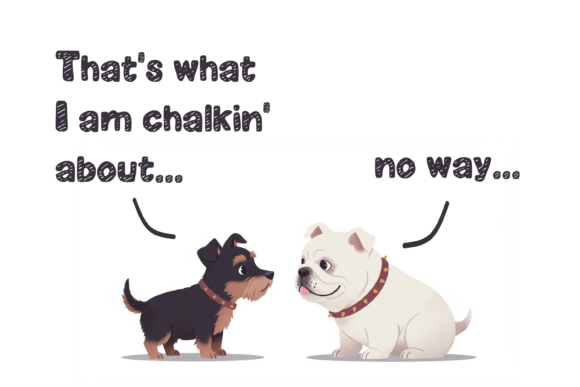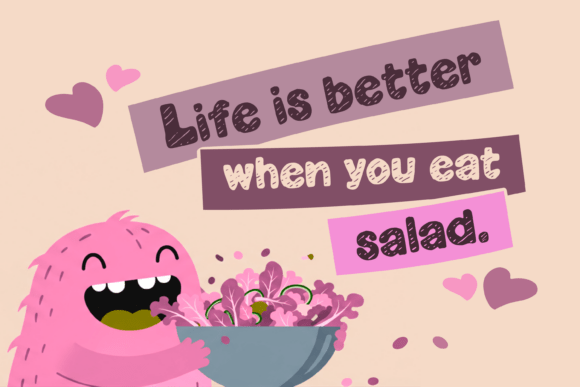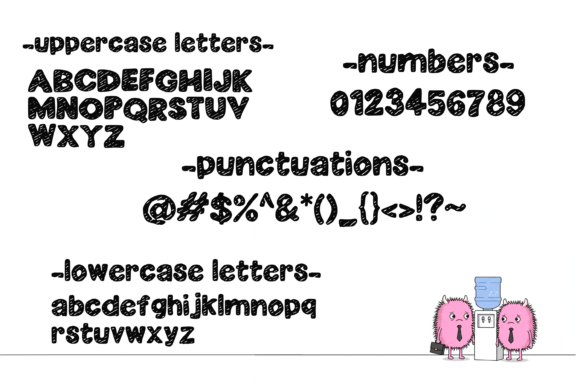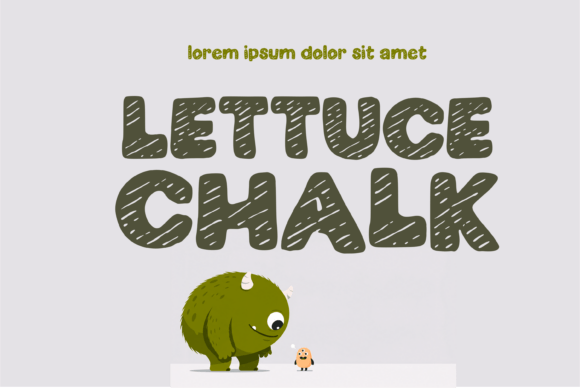
Introduction to Lettuce Chalk Font
Lettuce Chalk is a fun and bold handwritten display font that bursts with personality.
Its chubby, textured chalk-style letters bring a joyful and creative vibe to any project Perfect for teachers, crafters, and designers who love playful, eye-catching typography.
Key Features of Lettuce Chalk Font
Why Choose Lettuce Chalk Font?
Lettuce Chalk Font offers exceptional quality and versatility, making it a valuable addition to your design toolkit. Whether you’re creating for personal projects or commercial use, Lettuce Chalk Font delivers professional results.